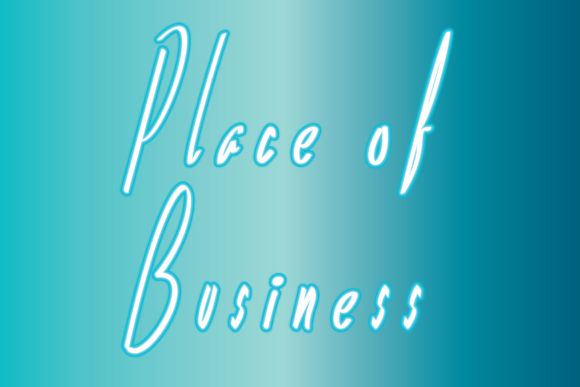
Welcome to the world of Place of Business Font, an exquisite ensemble of calligraphic strokes that exudes class and sophistication. This script font, meticulously crafted by Designvector10, transports you to an era of timeless elegance, where the written word was an art form.
Step into a realm where your designs transcend the ordinary and enter the realm of the extraordinary with Place of Business Font. Its balanced and varied composition, neither too thin nor too thick, ensures that every letter, every word, every sentiment you express carries the weight of history and the promise of modernity.
With Place of Business Font, your projects acquire a voice that whispers of timeless beauty. Whether it's a wedding invitation that speaks of enduring love, a brand logo that commands attention with its classic allure, or a social media post that captivates with its vintage charm, this font is your creative partner, transforming your ideas into captivating works of art.
Imagine your wedding invitations adorned with the flowing script of Place of Business Font, the letters dancing across the page like a symphony of romance. Each guest will feel the tangible elegance of your choice, their hearts stirred by the timeless beauty of your sentiment.
Or picture your brand logo, emblazoned with the bold strokes of Place of Business Font, standing out from the crowd with its air of sophistication. Customers will be drawn to its classic appeal, recognizing the quality and care you've poured into your brand's identity.
And when you share your thoughts and creations on social media, let Place of Business Font be your eloquent ambassador. Its vintage charm will capture attention, inviting your audience into a world of timeless elegance. Your posts will resonate with a depth and authenticity that transcends the digital realm.
Place of Business Font is more than just a collection of letters; it's a gateway to a world of creative possibilities. Unlock the potential of your designs, elevate your brand's identity, and express your sentiments with the grace and charm of a bygone era. Let Place of Business Font be your timeless companion in creativity, leaving an indelible mark on all who encounter your work.